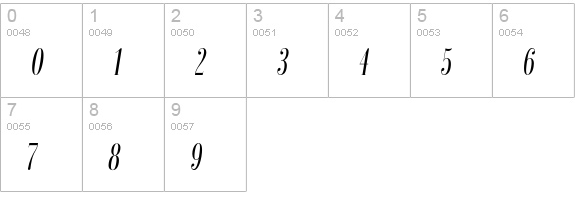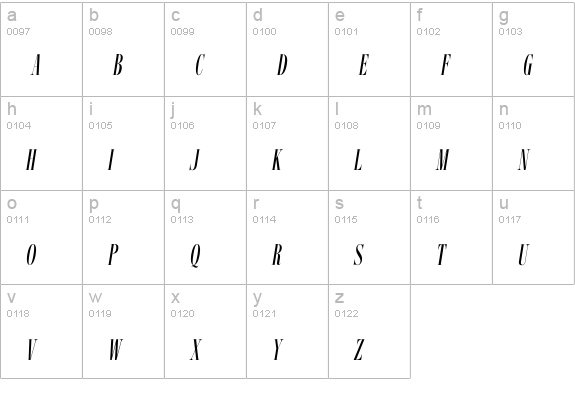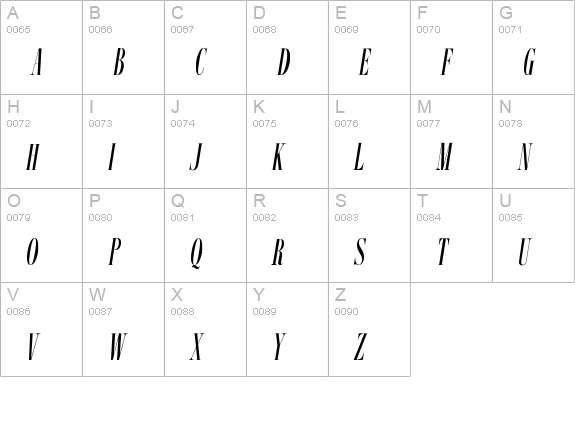
ImprimeurClassiqueEF-Obl Font Details
ImprimeurClassiqueEF-Obl font is a timeless and classic typeface that effortlessly blends elegance with sophistication. Its refined letterforms and subtle curves exude a sense of grace and refinement, making it ideal for projects that require a touch of sophistication. This font is perfect for a wide range of applications, including formal invitations, luxury branding, editorial design, and high-end packaging. Its versatility and timeless appeal make it a go-to choice for designers seeking to elevate their work and create a lasting impression. ImprimeurClassiqueEF-Obl font features a unique oblique style, adding a touch of modernity to its traditional roots. The slanted letterforms offer a dynamic and contemporary twist, making it well-suited for projects that demand a touch of creativity and innovation. One of the most appealing aspects of this font is that it is available for free download at FontsMarket.com. This means that designers and creatives can easily access and utilize this stunning typeface without any financial constraints. Whether you are a professional designer or a hobbyist, ImprimeurClassiqueEF-Obl font offers you the opportunity to bring your vision to life without any cost. With its impeccable design and freely available nature, ImprimeurClassiqueEF-Obl font is a must-have addition to any designer's toolkit. Its timeless beauty and versatility make it a font that will never go out of style, ensuring that your projects will always stand out from the crowd. Embrace the elegance and sophistication of ImprimeurClassiqueEF-Obl font and let your creativity soar to new heights.